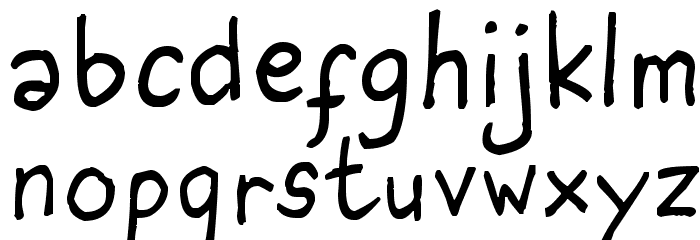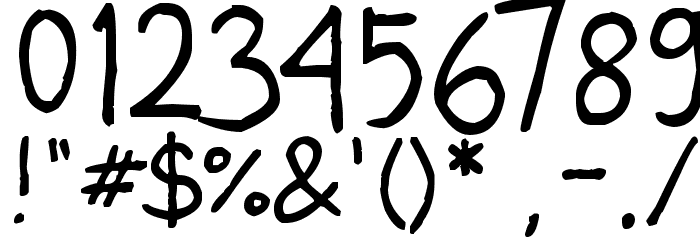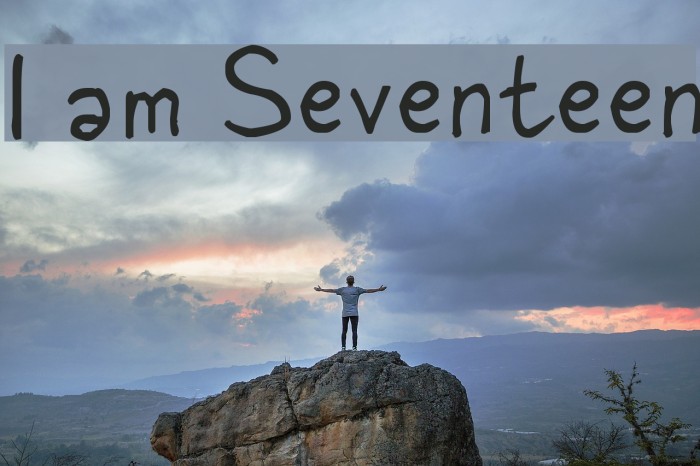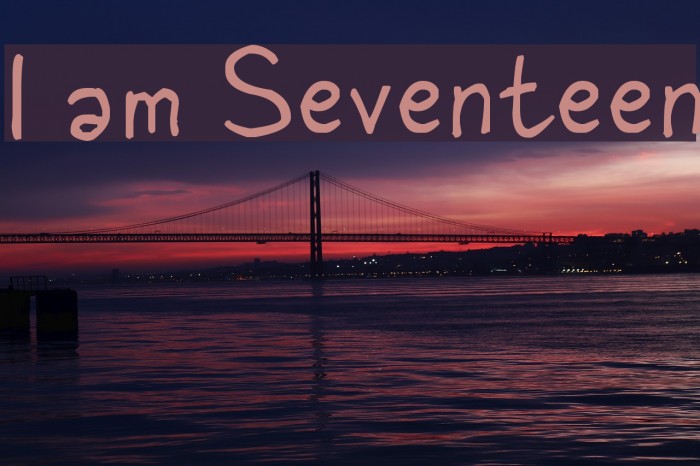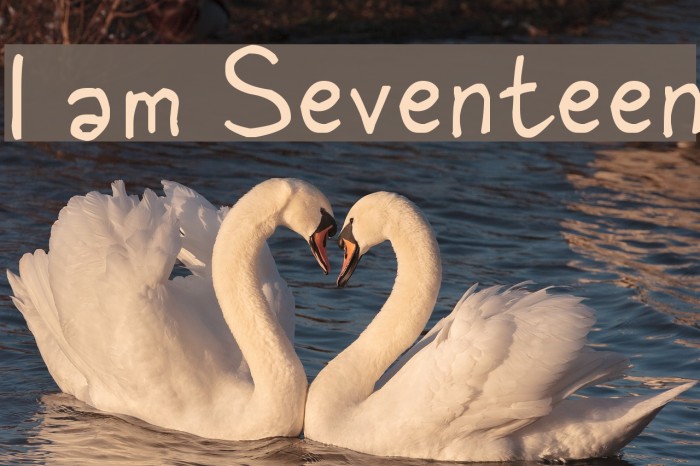
I am Seventeen Font
This font features a playful and casual handwritten style, characterized by its uneven strokes and slightly irregular shapes. The letters have a natural, organic feel, as if they were quickly sketched with a marker or pen. The uppercase and lowercase letters maintain a consistent style, with rounded edges and a slight tilt, adding to the informal appearance. The numbers and special characters follow the same aesthetic, ensuring a cohesive look across all glyphs. This font exudes a sense of spontaneity and creativity, making it ideal for projects that require a personal touch.
A playful, casual handwritten font with uneven strokes and a natural feel.
- Proposed Projects: Ideal for greeting cards, personal notes, children's books, and creative branding.
- Overall Style: Casual
- Use Case: Headlines, Informal text, Creative projects